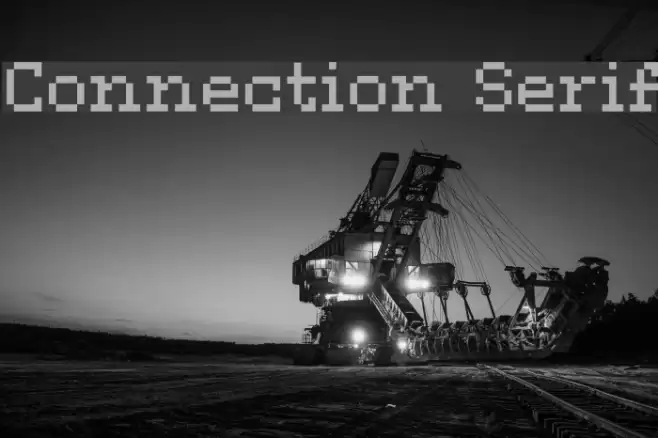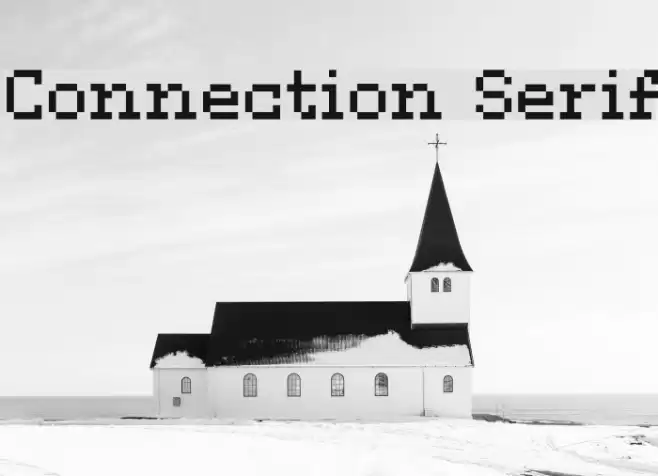
Connection Serif Font
Connection Serif Description
This font features a pixelated, blocky design reminiscent of early digital displays and retro video games. Each character is constructed with a grid-like precision, giving it a distinctly digital and mechanical feel. The uppercase and lowercase letters maintain a consistent height, contributing to a uniform appearance. Numbers and special characters follow the same pixelated style, ensuring a cohesive look across all glyphs. The font's geometric nature makes it highly legible at various sizes, though it is particularly striking in larger formats where its unique style can be fully appreciated.
A pixelated, blocky font with a retro digital aesthetic from Uncategorized fonts.
- Proposed Projects: Ideal for retro-themed designs, video game graphics, digital art projects, and any creative work that requires a nostalgic, tech-inspired look.
- Overall Style: Retro, Digital